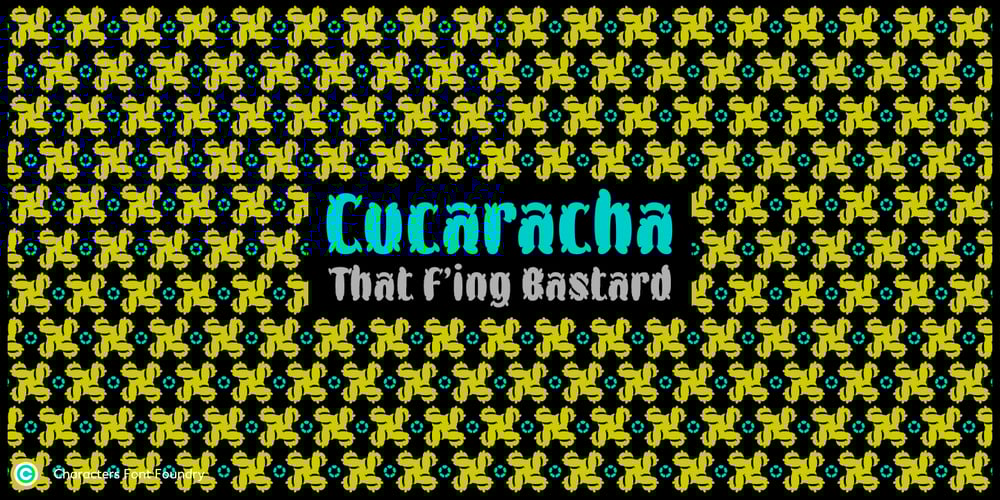
Cucaracha Font Family was designed by René Verkaart and published by Characters Font Foundry. Cucaracha contains 2 styles and family package options. Cucaracha is a freaky, crazy, flowery-kinda looking family of two fonts: Cucaracha Font & Cucaracha Wixa. Cucaracha Font is like a plant starting to bloom in spring. It comes with an assortment of 8 additional icons all available through the standard keys. They are easily positioned so you can combine the icons and make an endless variety of patterns, structures and frames. Cucaracha is custom made for the Volcano ‚Bastard Project’ and was published in the project book.